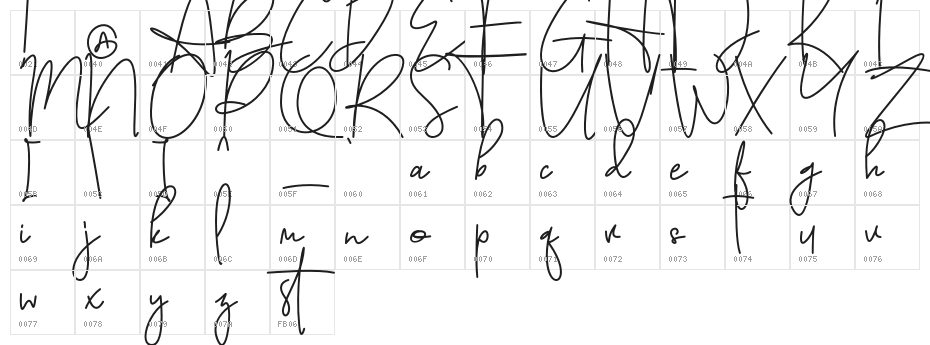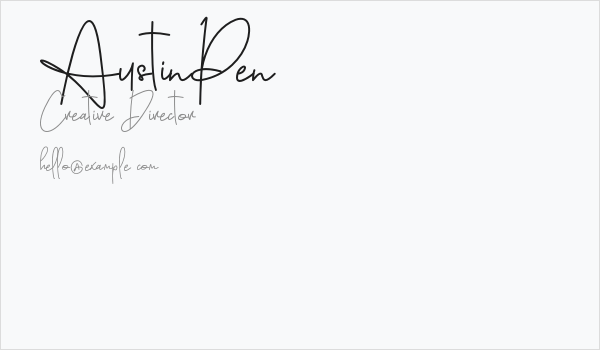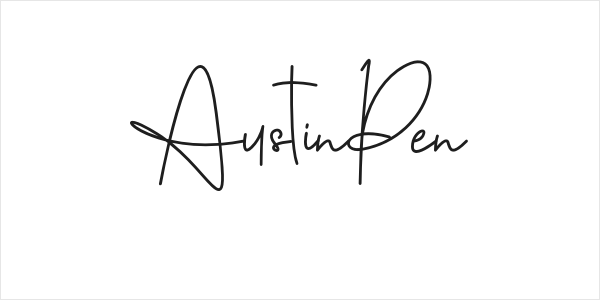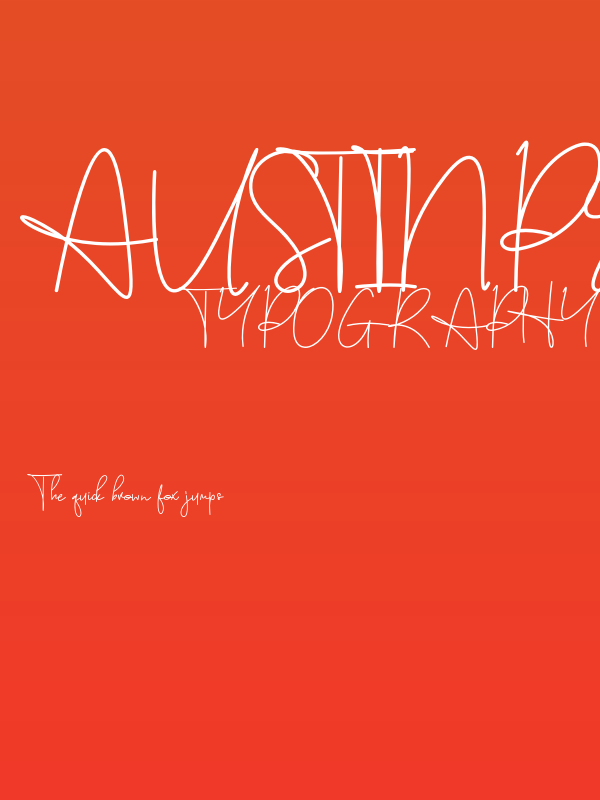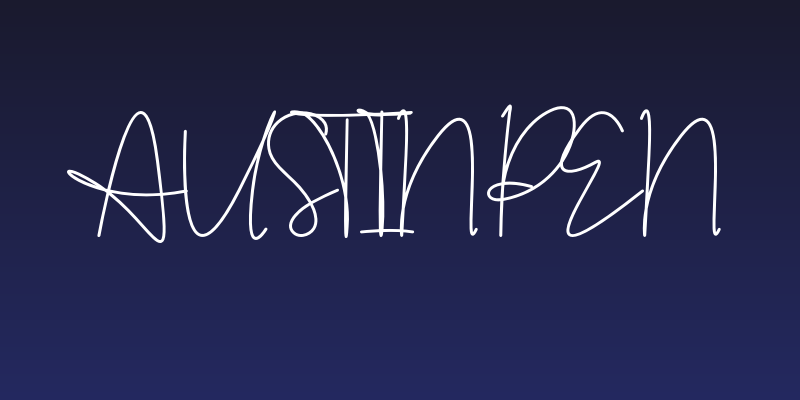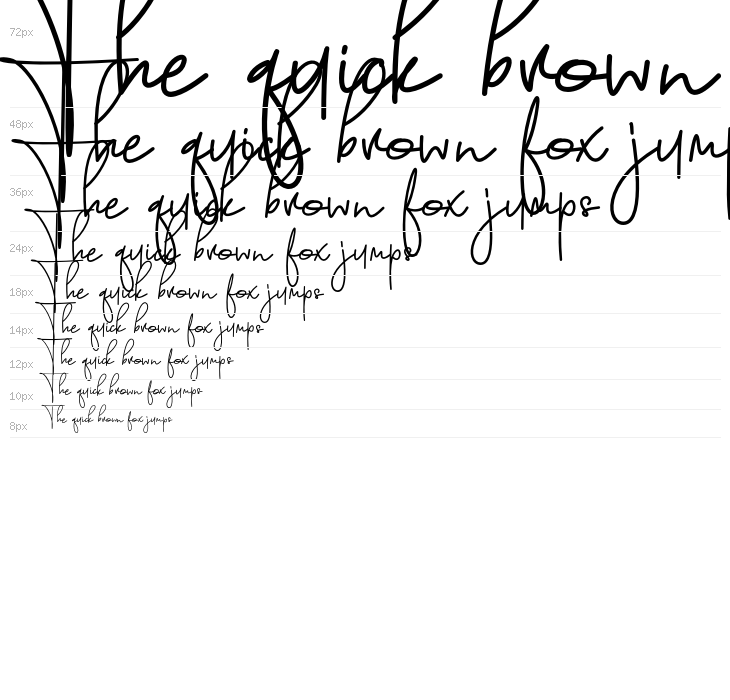
AustinPen Font
AustinPen Description
This font exhibits a lively and dynamic handwritten style, characterized by its fluid and continuous strokes. The uppercase letters are tall and slender, with a playful, slightly irregular form that adds a personal touch. The lowercase letters are more intricate, with loops and flourishes that enhance the font's expressive nature. The overall appearance is casual yet sophisticated, making it suitable for projects that require a personal or artistic flair. The font's unique style is both engaging and versatile, allowing it to stand out in various design contexts.
| Proposed Projects | Ideal for greeting cards, invitations, personal branding, and creative projects that require a personal touch. |